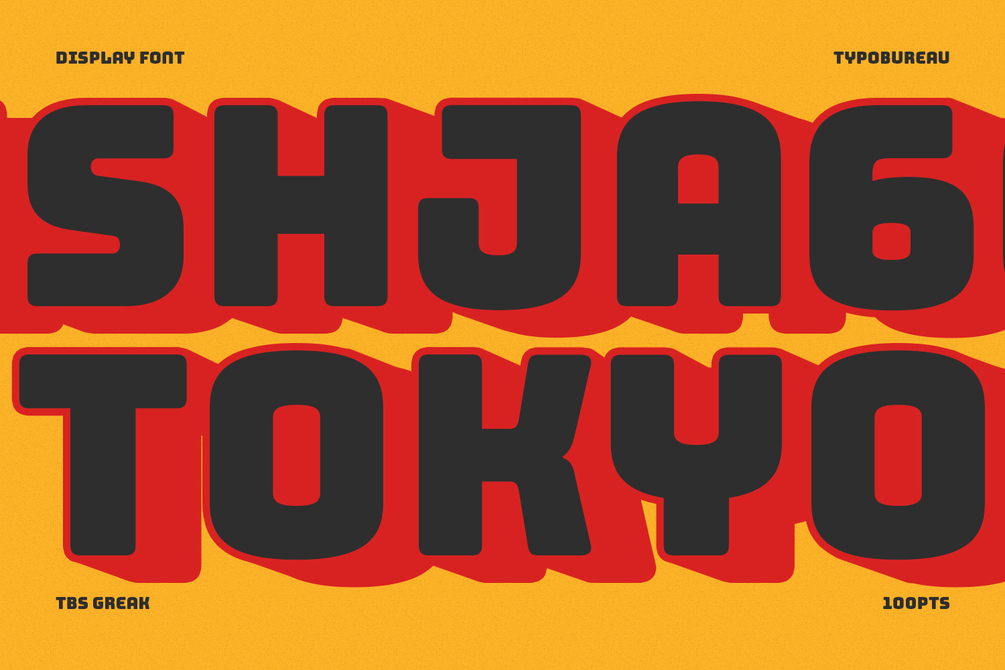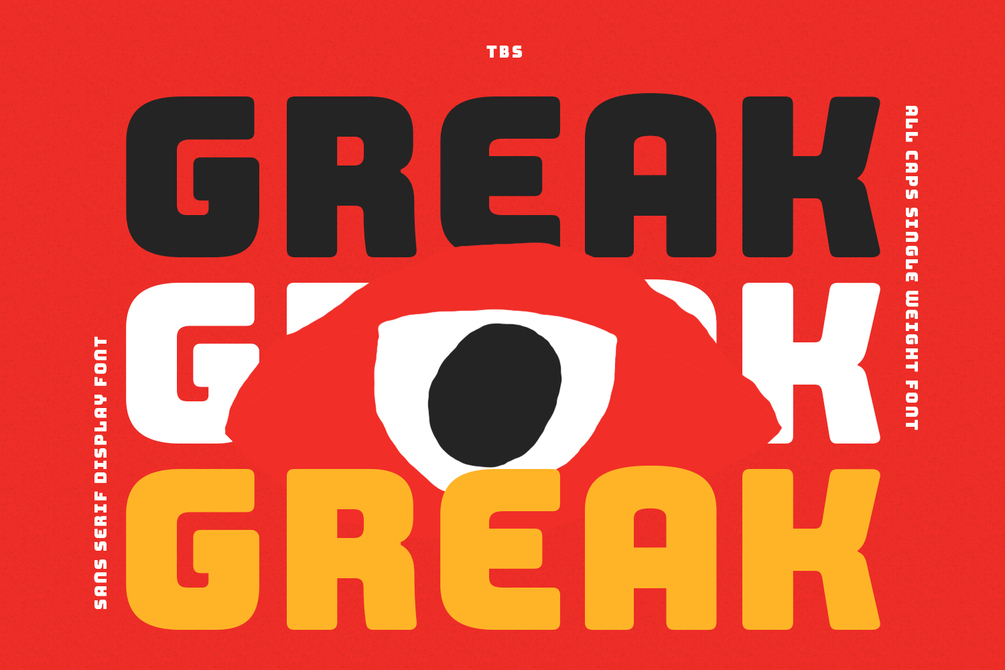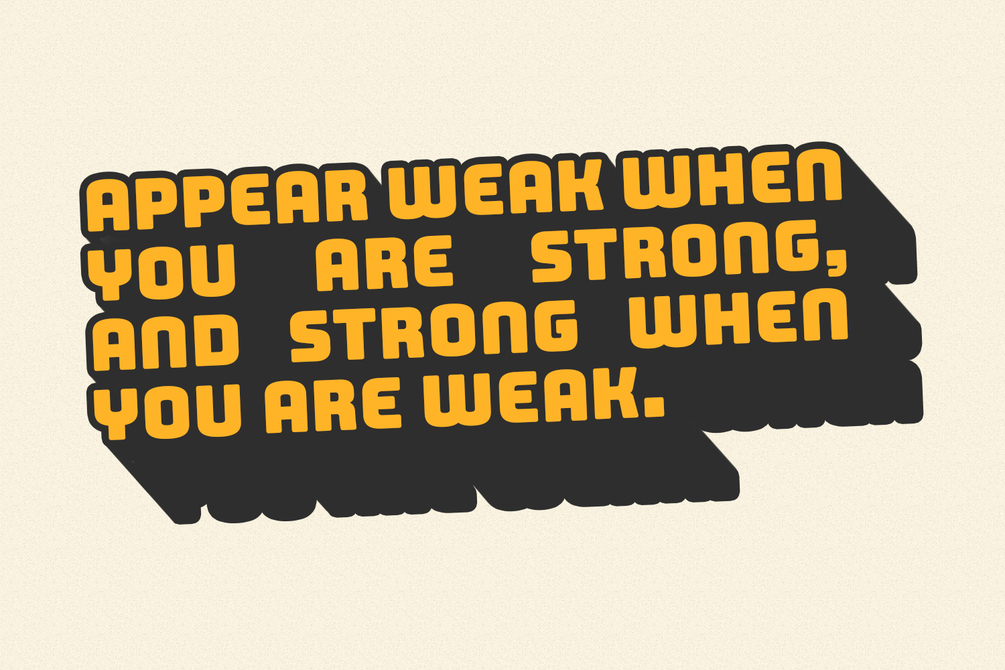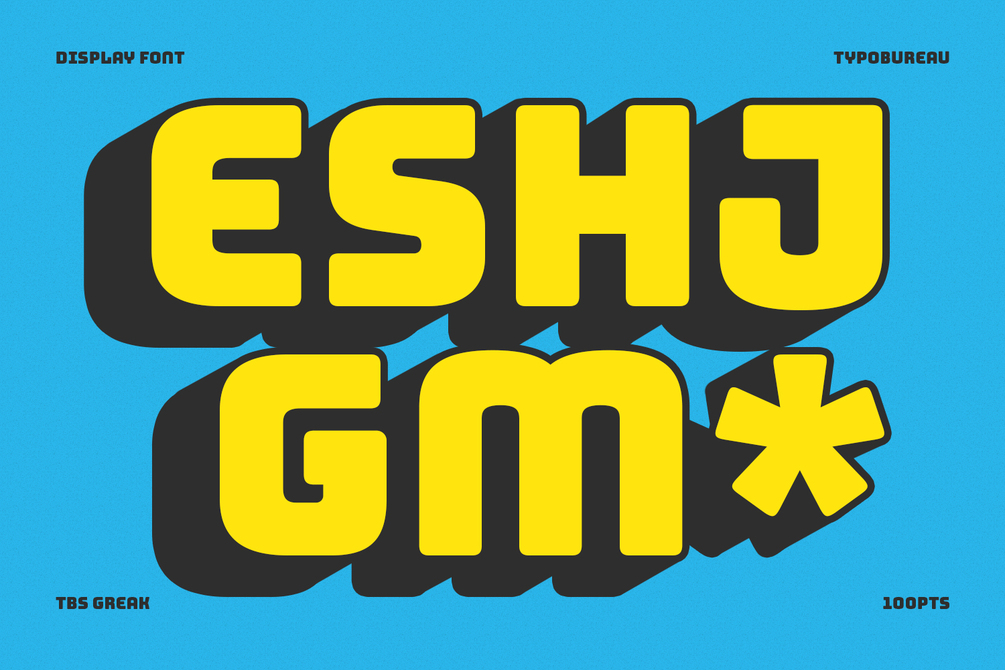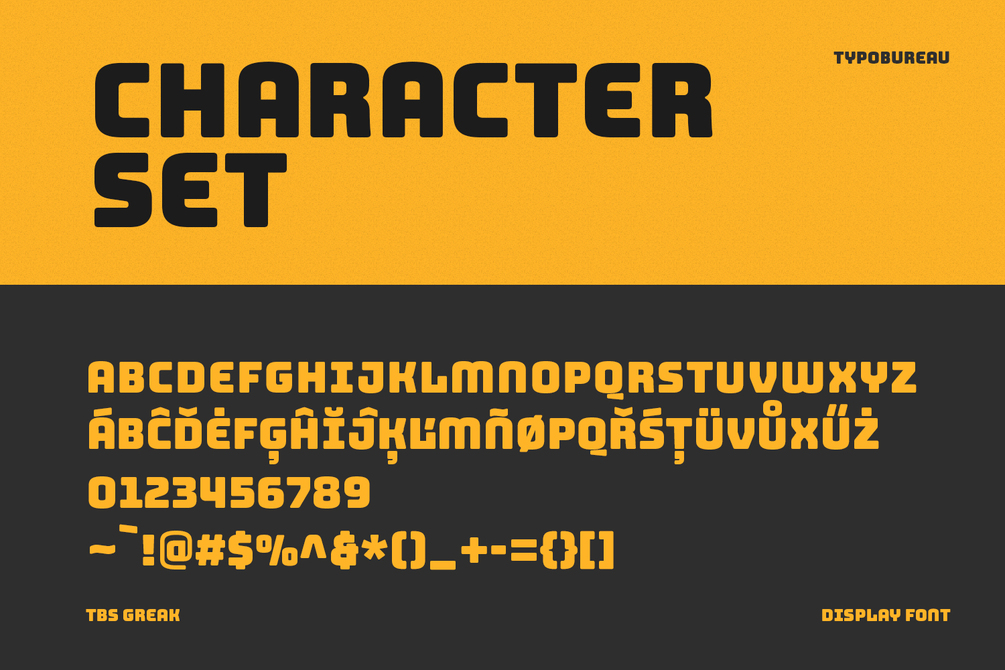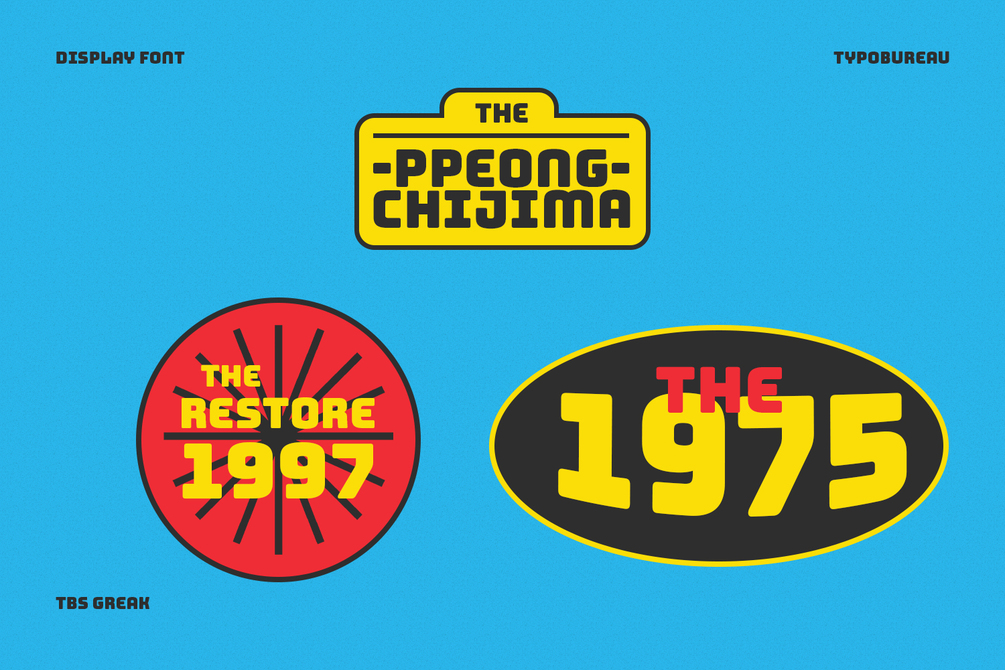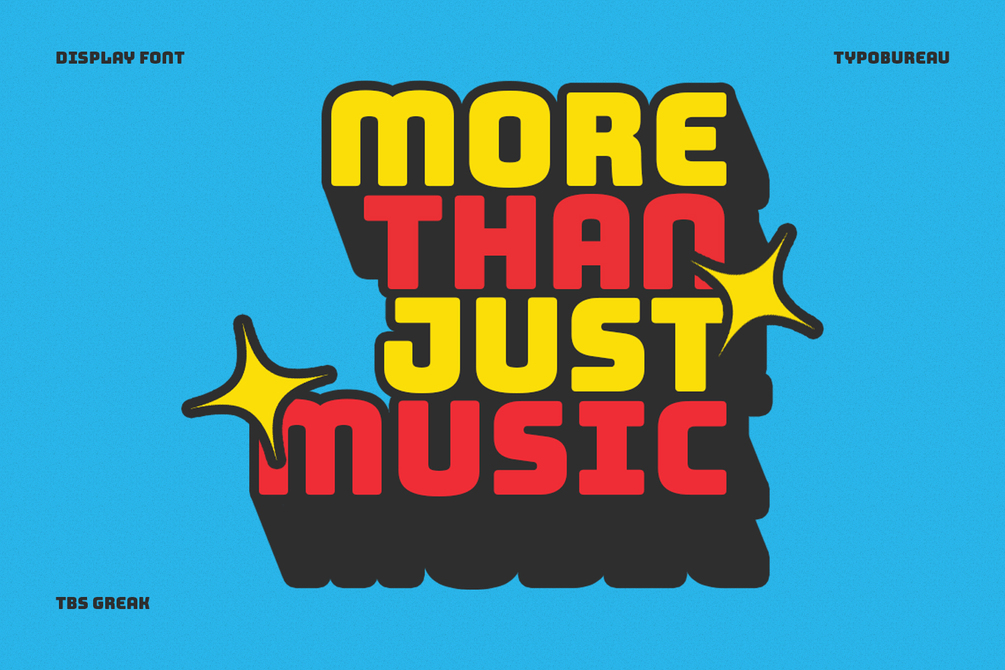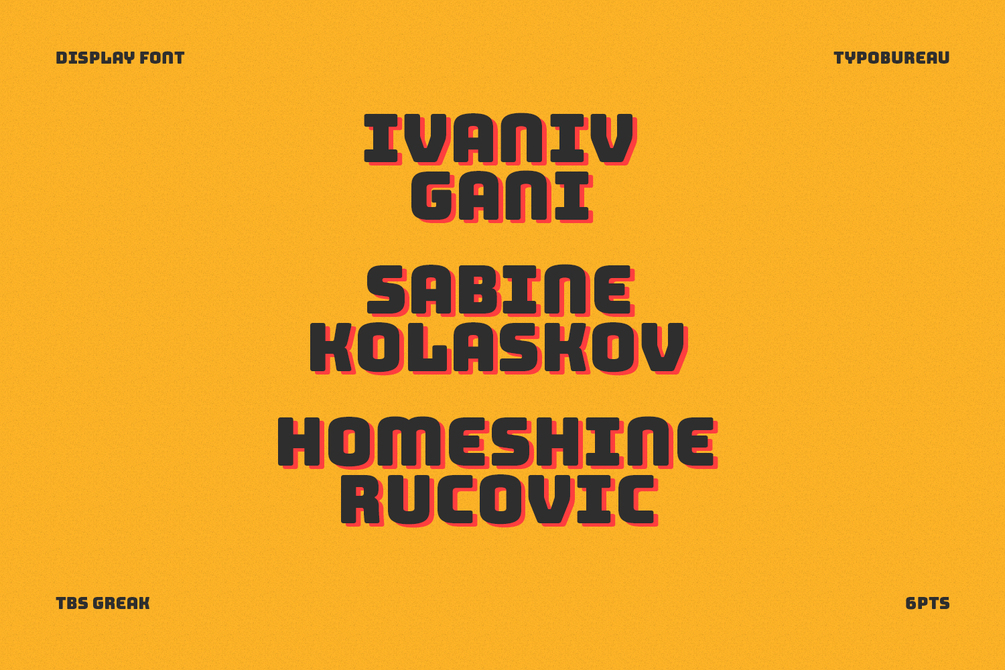
TBS Greak
TBS Greak is an All Caps bold round font for display purpose inspired from 60s to 90s vibes Retro font, this font support multilingual languages and free update feature. published by Typo Bureau Foundry.